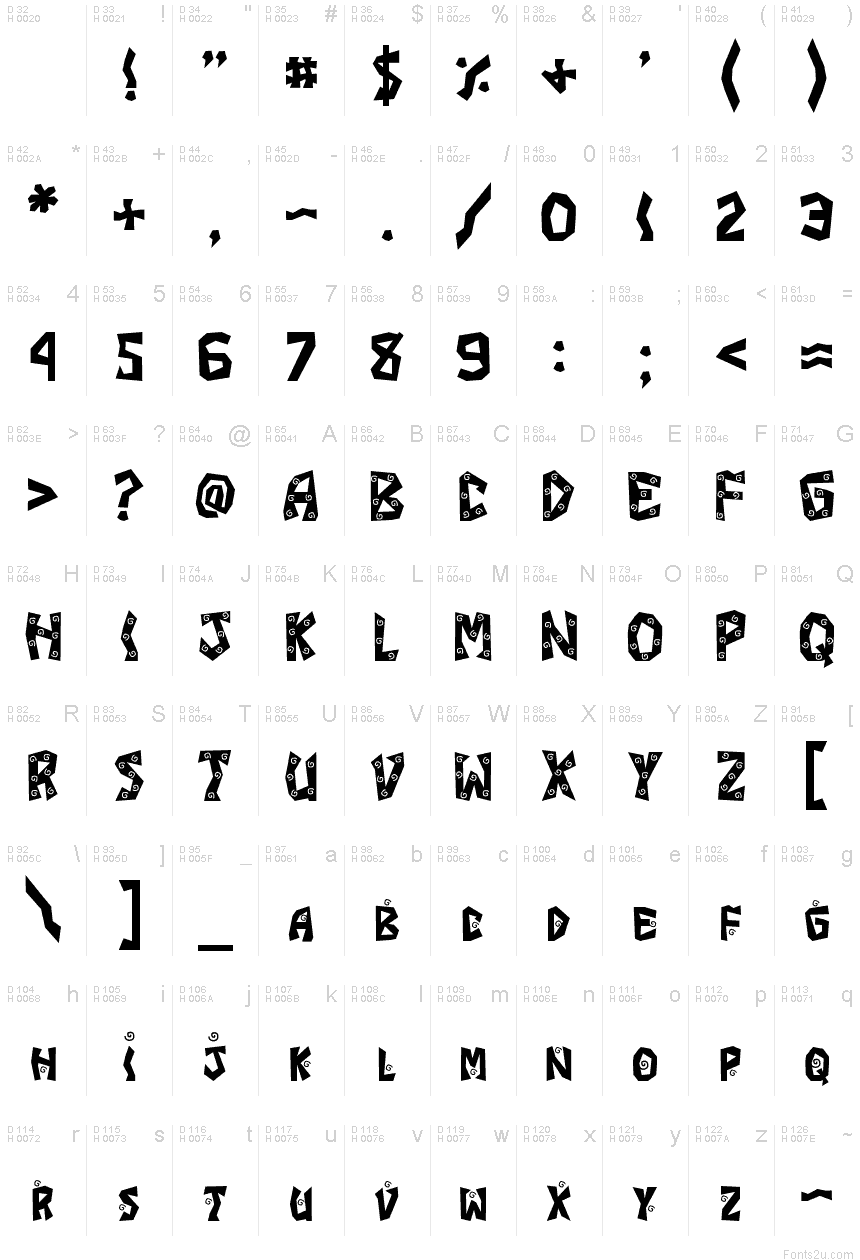
JI Margarita
JI Margarita font by Jeri Ingalls is a free decorative display typeface that feels like confetti tossed across the page. Each letter is a chunky, hand-cut shape packed with playful spirals, giving your text a bouncy, offbeat rhythm that screams party time. The bold, inky black forms and crooked angles make words look like they’re dancing, even before you add color or graphics.
Using JI Margarita, your headlines instantly set a festive, slightly wild mood-great for kids’ event flyers, party invitations, carnival posters, T-shirt graphics, craft projects, and social media promos. This free font shines when used big and loud, with plenty of space around it. Pair it with a simple rounded sans serif for body copy to let the quirky spirals stay center stage.